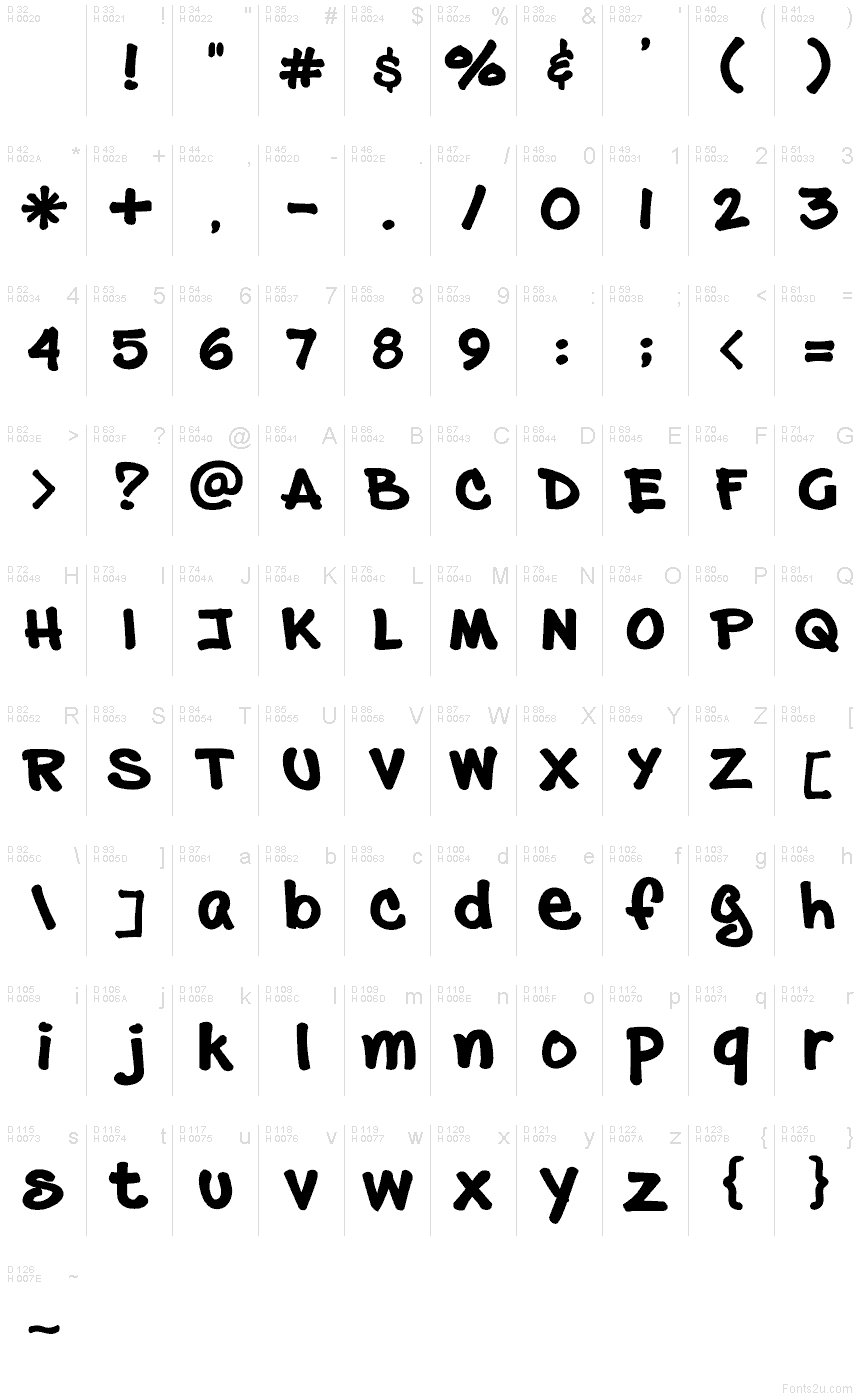
Prizma Fine2
Prizma Fine2 font is a Jeff Diaz expanded graffiti creation that’s both modern and artistic. Featuring casual strokes and perfectly rounded curvy details, it brings a light flow to text. Each character has its beauty in this approachable font prepared for a wide range of audiences.